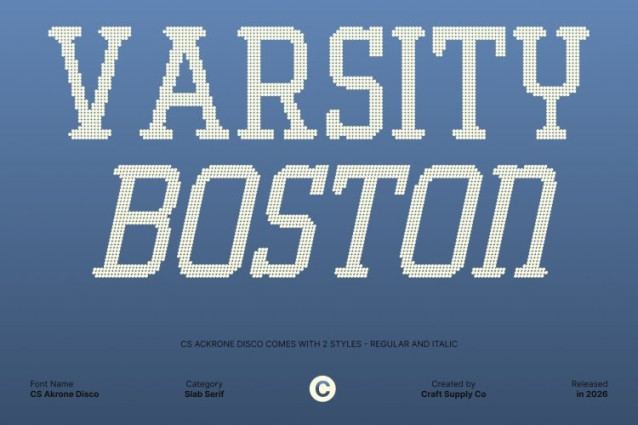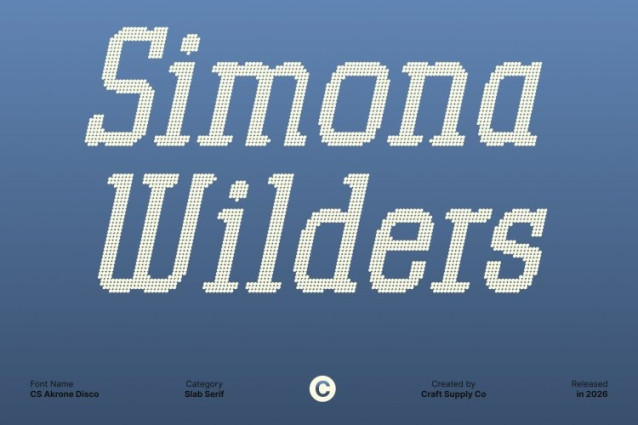
CS Akrone Disco Font This is a slab serif font designed to balance gentle softness with assertive strength. Its sturdy slab serifs provide a grounded, confident foundation, while smooth curves and balanced proportions add an approachable, friendly character. This harmony creates a modern typeface that feels clear, confident, and visually engaging.
High Readability with Disco-Driven Impact
Built with clean, well-defined letterforms, this font performs beautifully in display settings. Its strong legibility ensures clarity from a distance, making it ideal for headlines, posters, advertisements, and billboards. Subtle disco-inspired energy introduces rhythm and visual lift, giving the font a lively presence without sacrificing readability.
Modern, Sturdy, and Visually Inviting
This font communicates a contemporary and solid visual identity while remaining welcoming and refined. Its confident weight allows messages to stand out with authority, while the softened details keep layouts feeling balanced and approachable perfect for modern design needs.
Ideal for Logos and Bold Visual Branding
From logos and brand identities to large-scale promotional materials, this font offers versatility and strong presence. Its clear structure, balanced personality, and energetic undertone help create memorable typography that feels modern, confident, and ready to shine across a wide range of creative projects.